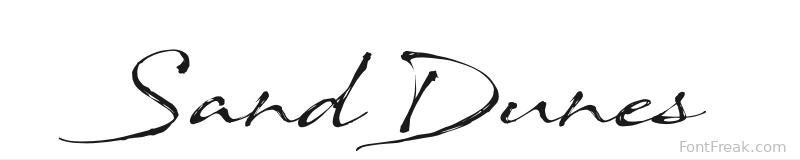
SandDunes
About SandDunes
The SandDunes font, designed by Youssef Habchi, is an elegant handwritten typeface that exudes a warm, inviting charm. Its flowing script style features a combination of graceful curves and sharp strokes, creating a dynamic visual appeal. The brush-like strokes add an organic feel, while the varying stroke weight introduces a subtle contrast, enhancing its aesthetic qualities. The spacing between characters is thoughtfully considered, allowing for easy readability while maintaining an artistic flair.
This font is versatile and can be effectively used in a variety of contexts. It is particularly well-suited for wedding invitations, where its romantic and personal touch can elevate the overall design. Additionally, SandDunes works beautifully for greeting cards, lending a heartfelt quality to messages. It is also an excellent choice for restaurant menus, capturing the essence of a cozy dining experience. For content creators and bloggers, this font can add a distinctive character to headers and social media graphics, making posts stand out in a crowded digital landscape.
The target audience for SandDunes includes graphic designers, small business owners, and content creators who seek to infuse their projects with a touch of elegance and creativity. Its free availability as freeware makes it an appealing option for those looking to enhance their designs without the burden of licensing fees.
What sets the SandDunes font apart is its ability to blend artistic expression with practical functionality. Its unique, handwritten style offers a personal touch, making it perfect for projects that aim to connect on a deeper level. Whether you’re crafting an invitation, designing a menu, or creating engaging content, the SandDunes font free download is a valuable resource that can elevate your work to new heights.